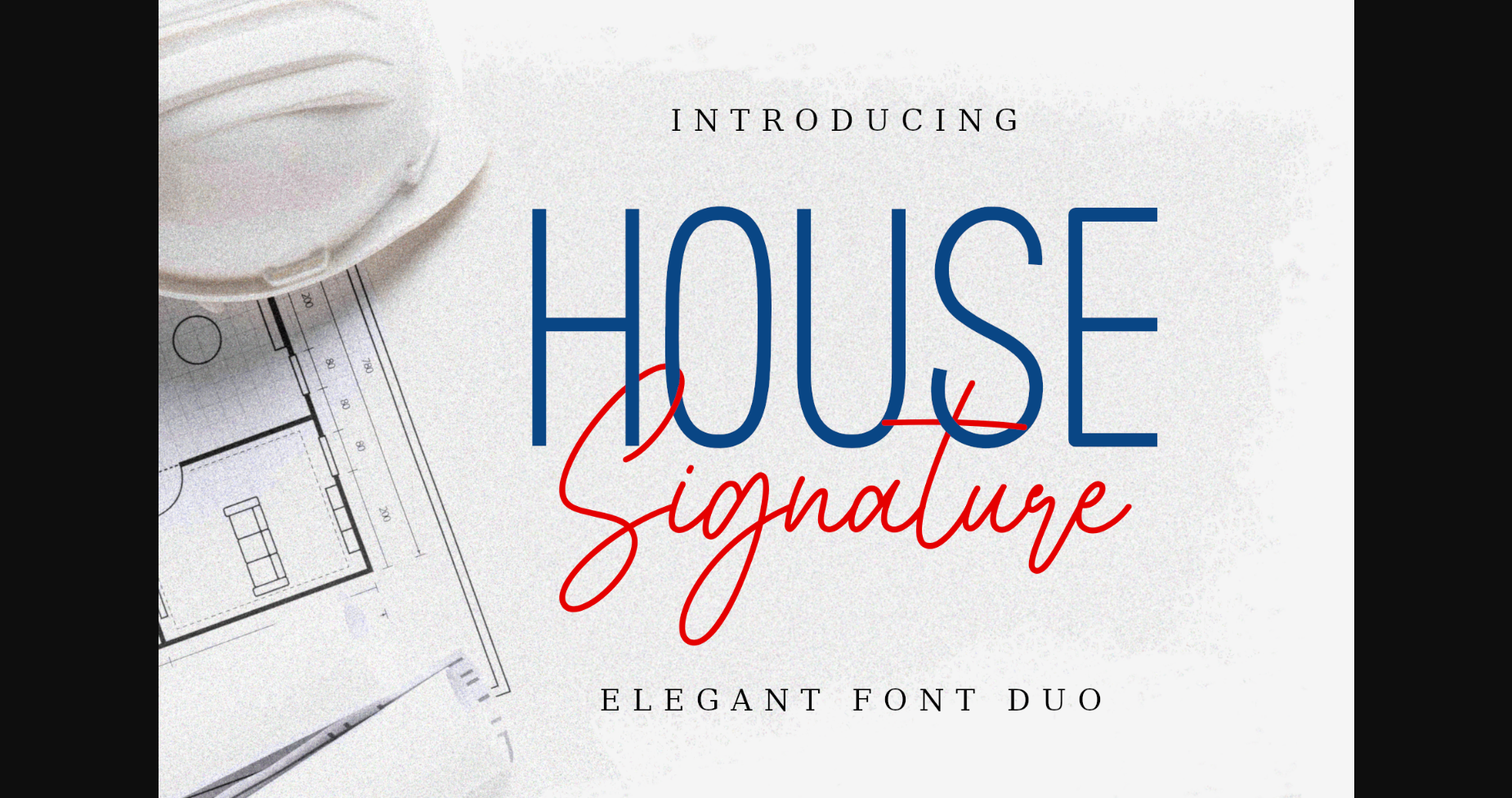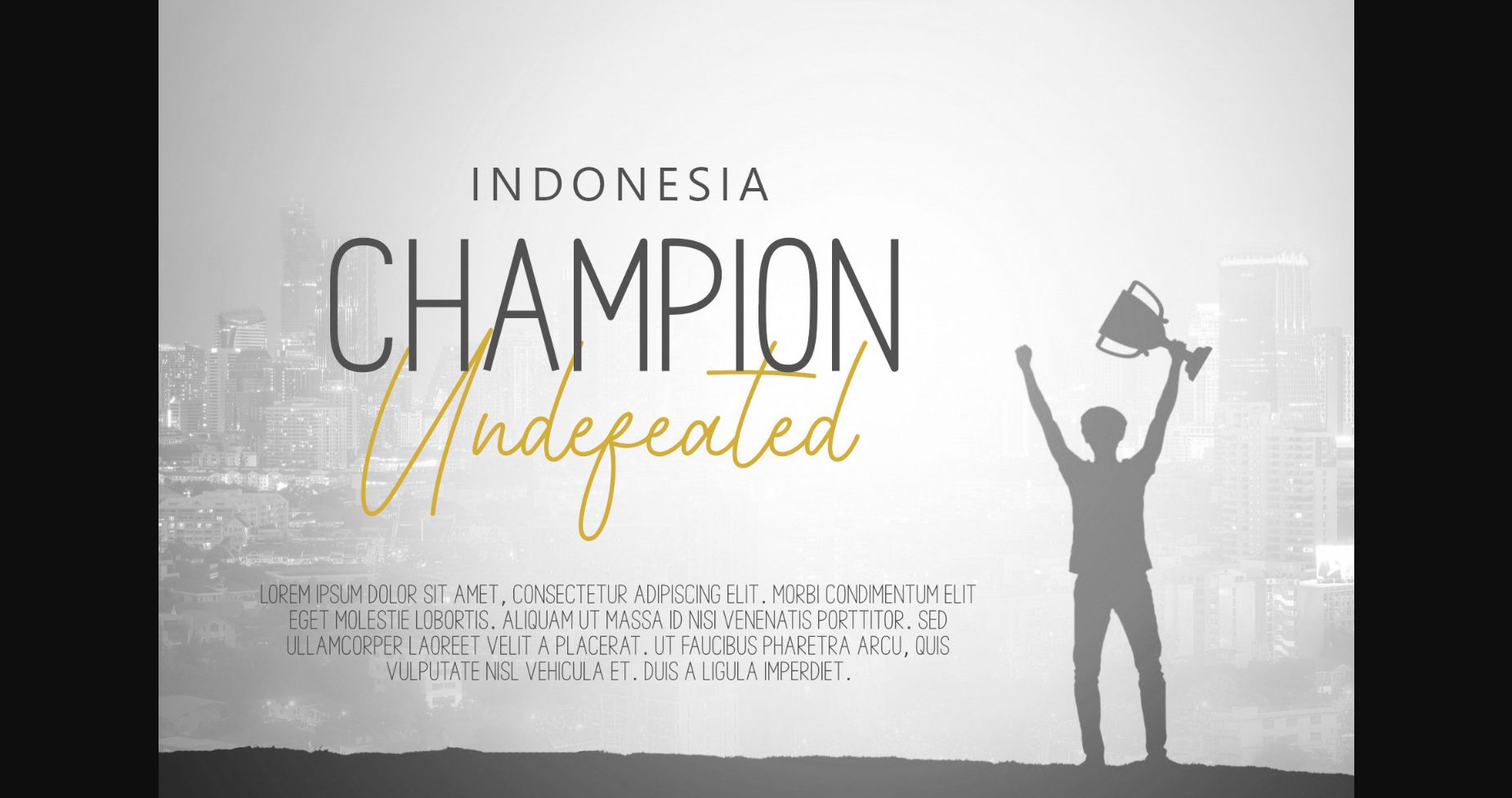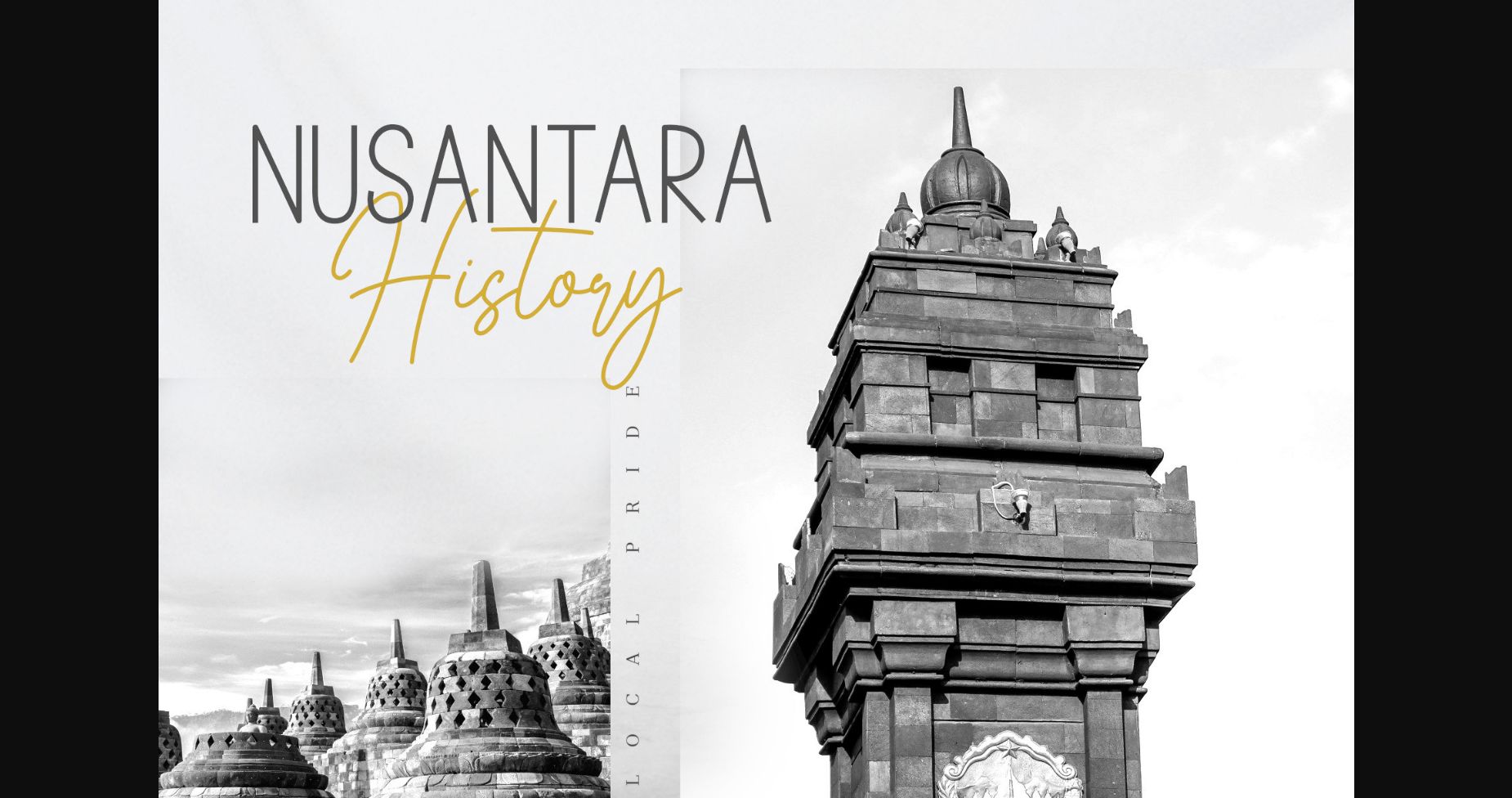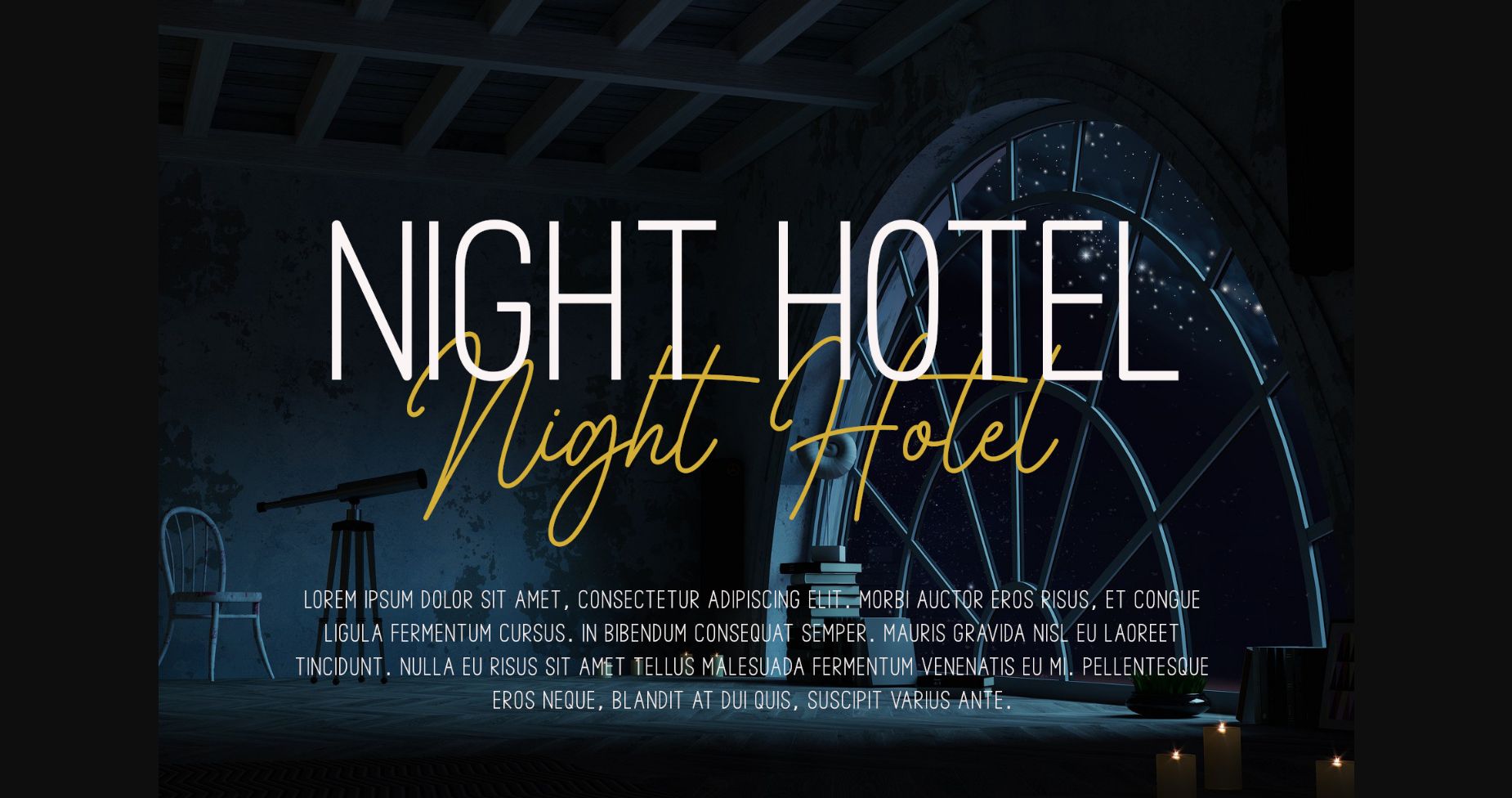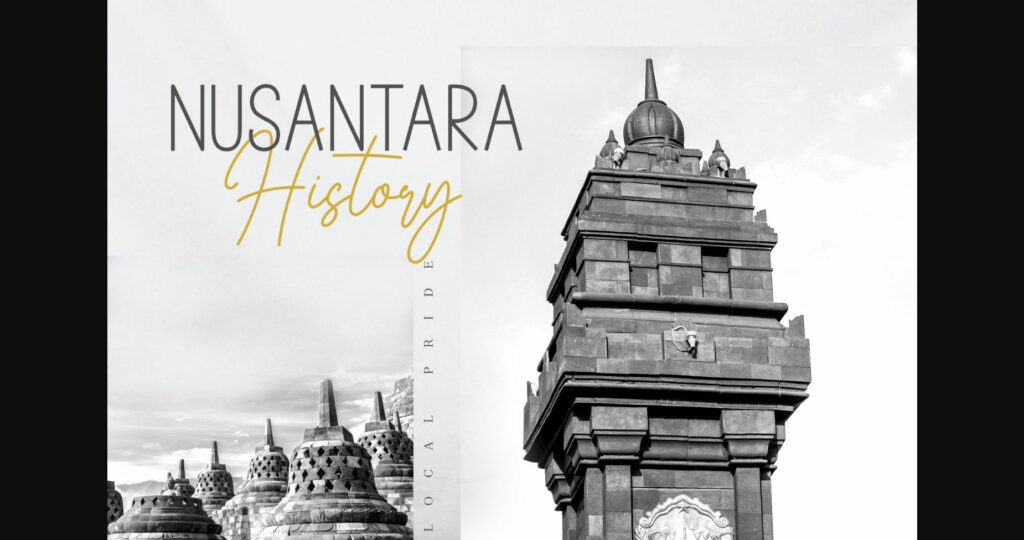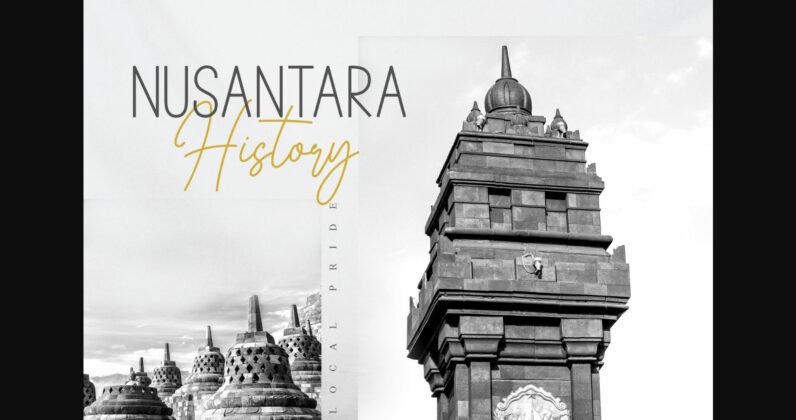
About House Signature Font
House Signature is an elegant and delicate styled duo font (sans serif and script). It has beautiful and well balanced characters and as a result, it matches a wide pool of designs. House Signature is PUA encoded which means you can access all of the glyphs and swashes with ease!